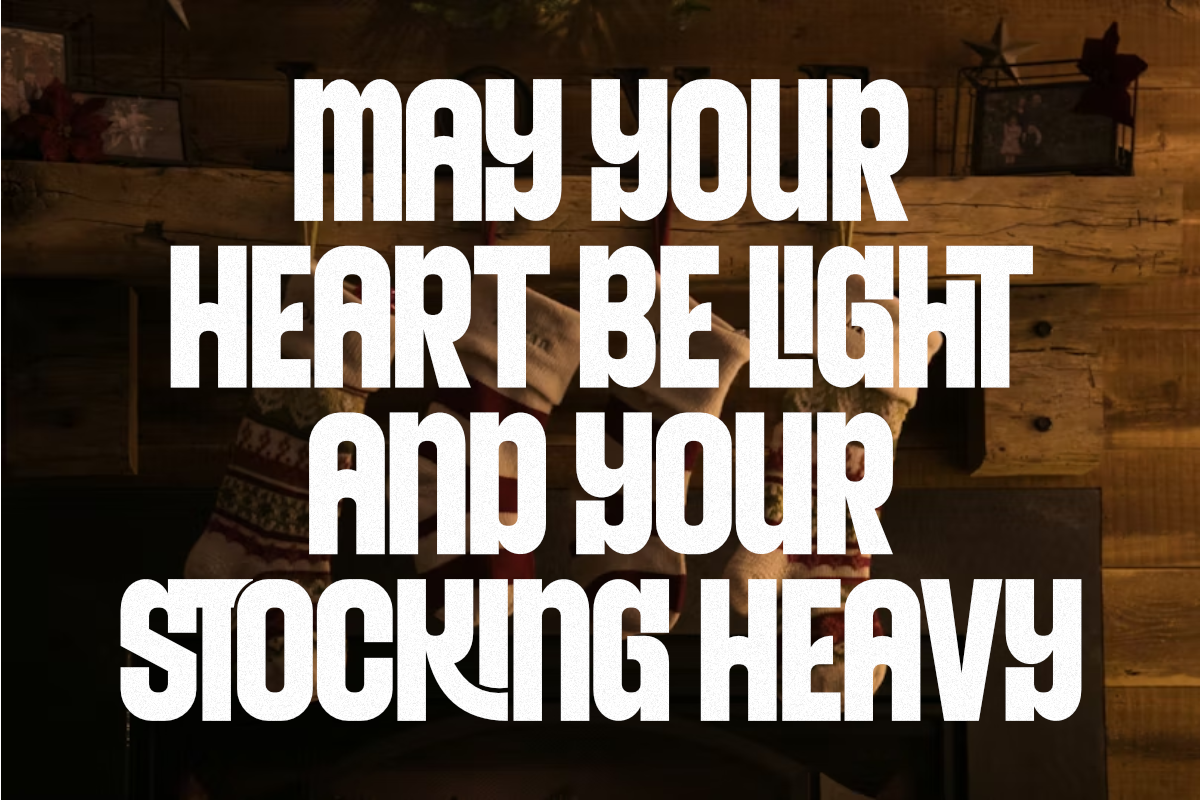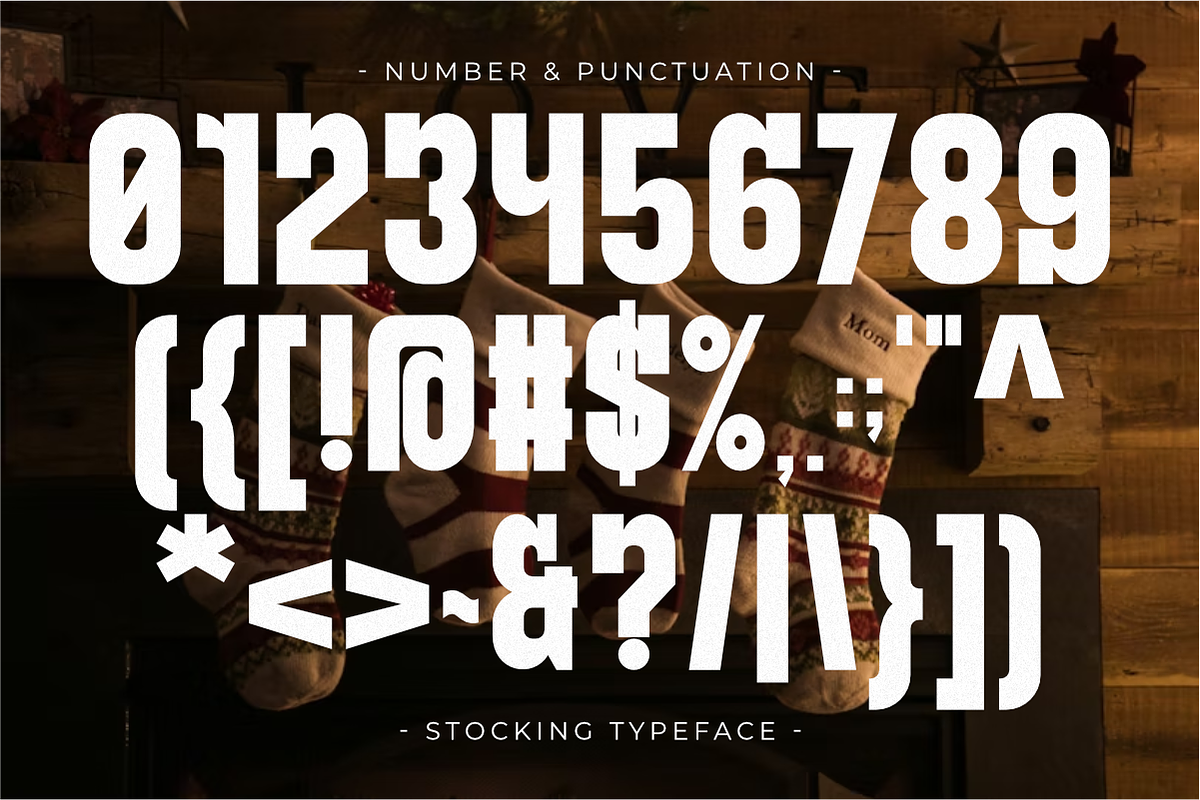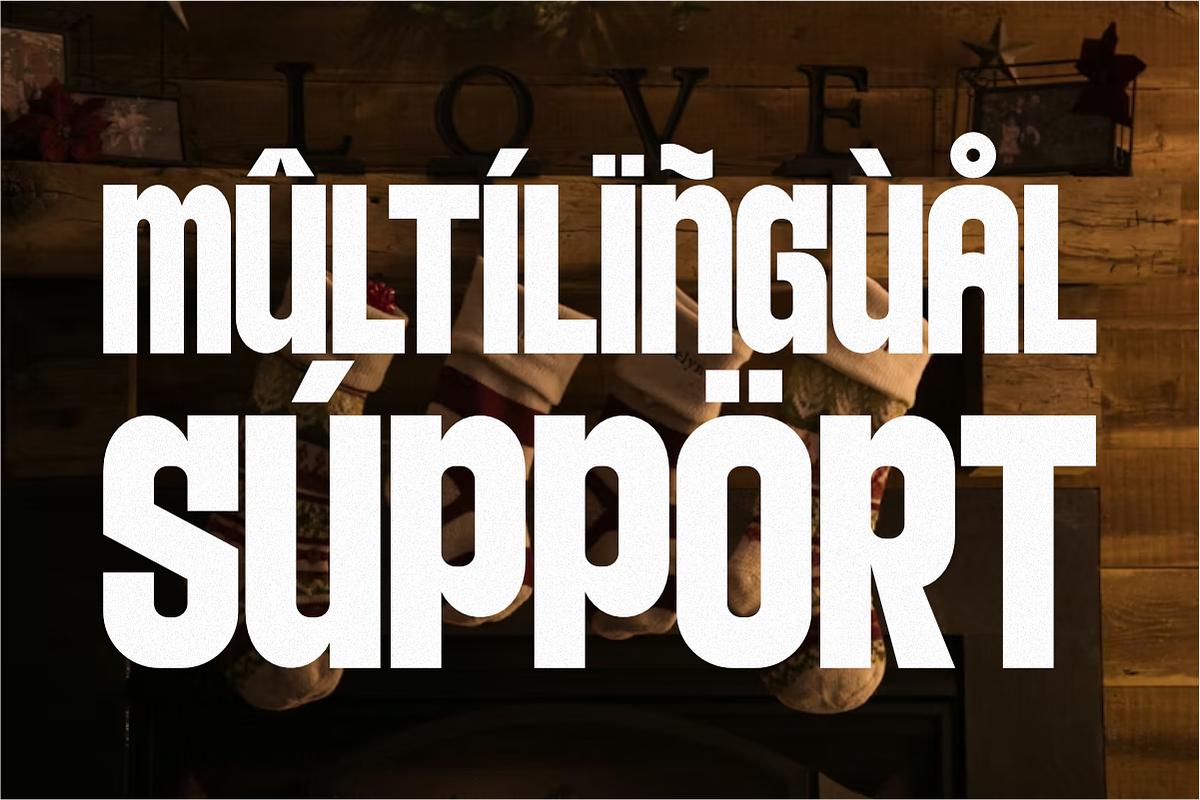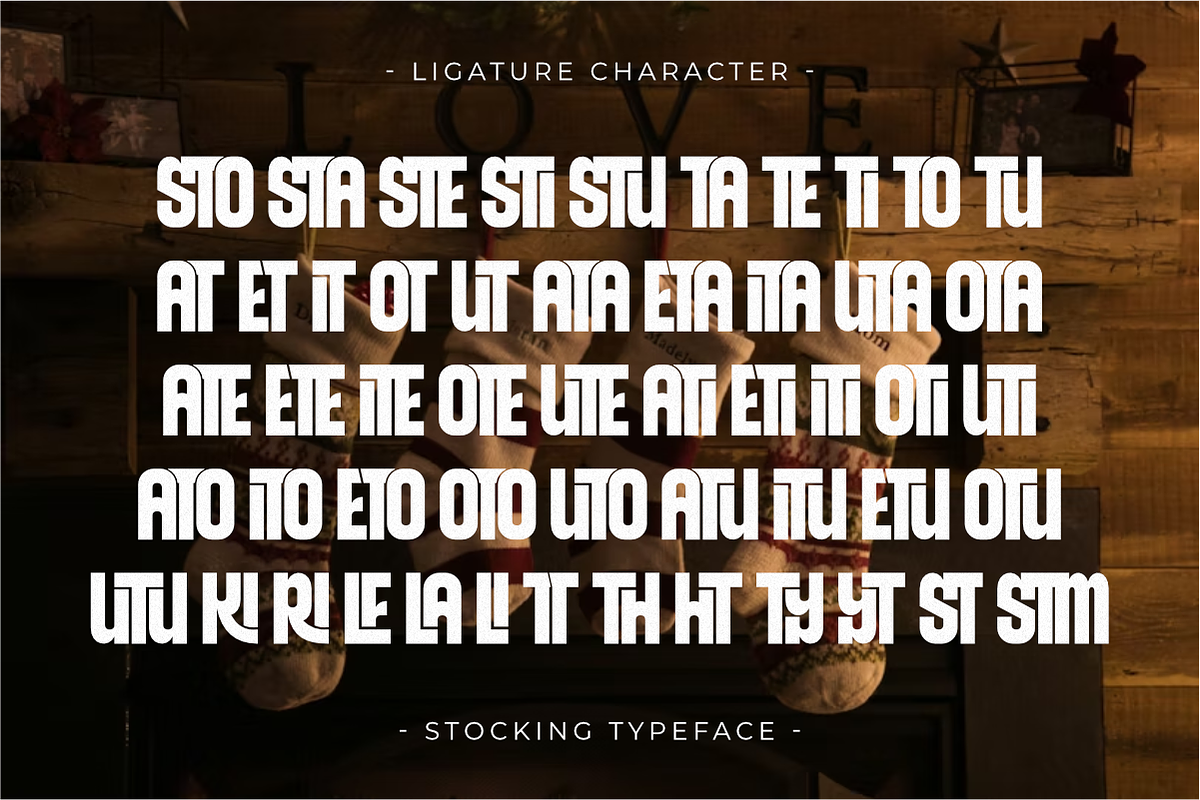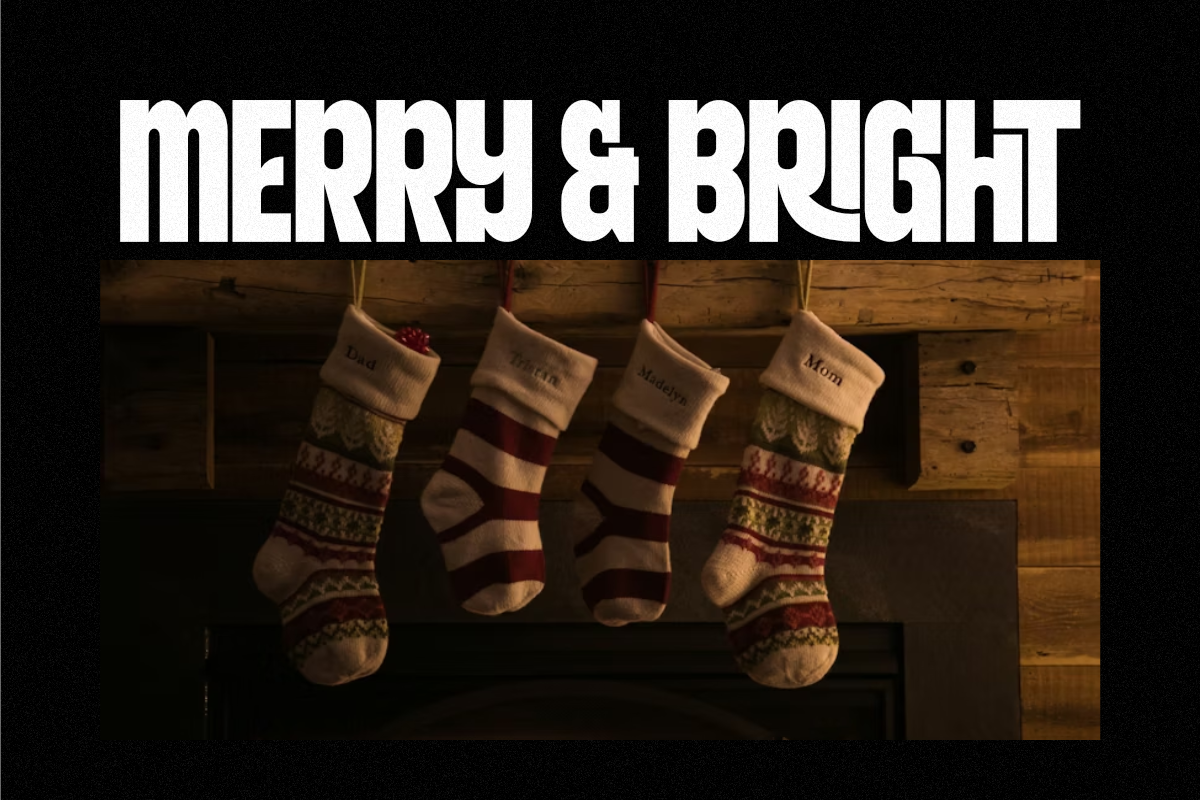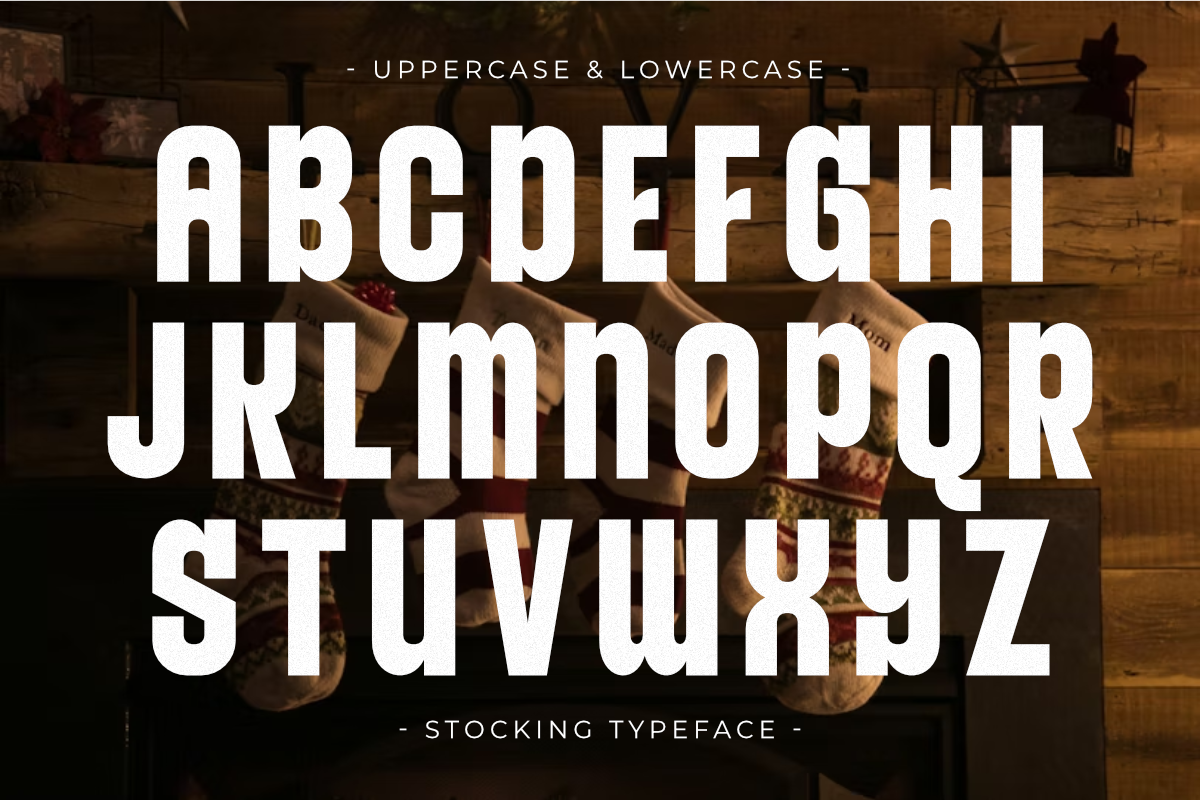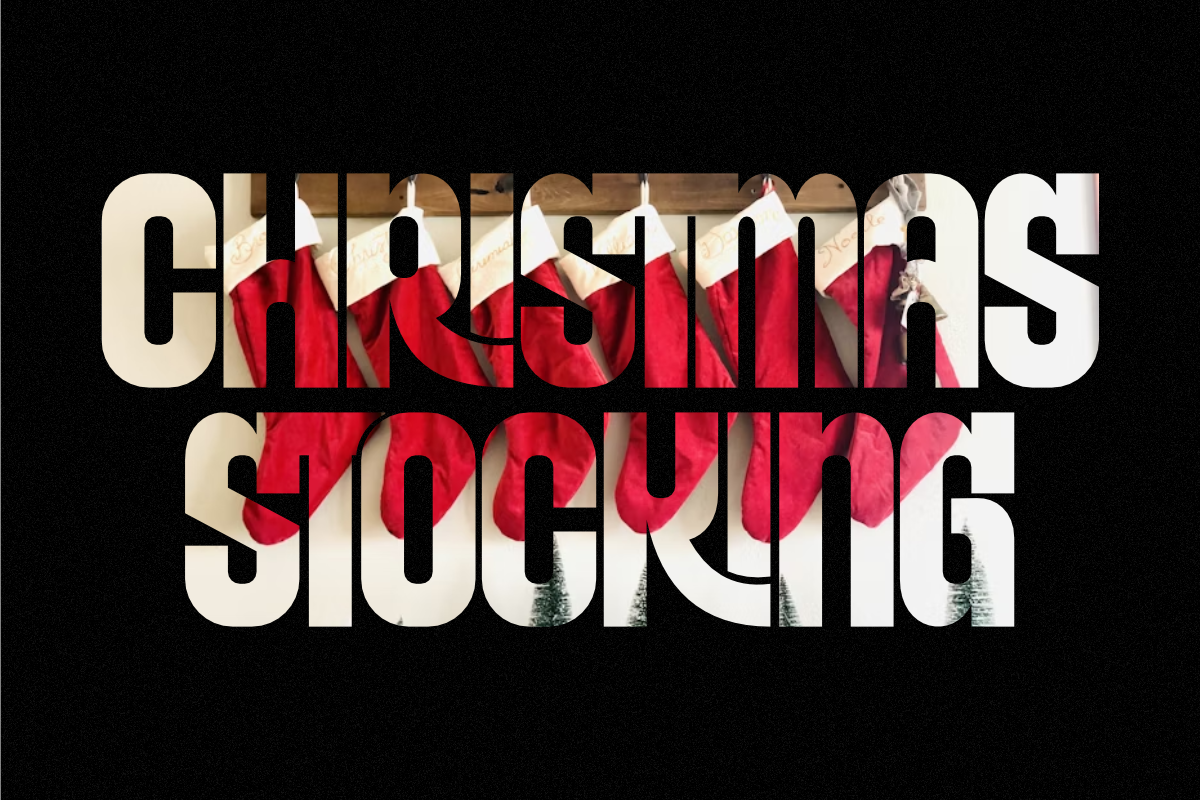
Stocking - Condensed Sans Serif
Stocking is a cheerful and bold Condensed Sans Serif font that captures the cozy spirit of the Christmas and Holiday season. Its thick, rounded structure and unique curved ascenders/descenders give it a playful yet modern festive appeal. With 52 elegant ligatures, this all-caps display font is perfect for high-impact seasonal apparel, holiday branding, greeting cards, Christmas posters, and any project needing a warm, unique, and joyful touch for winter design.